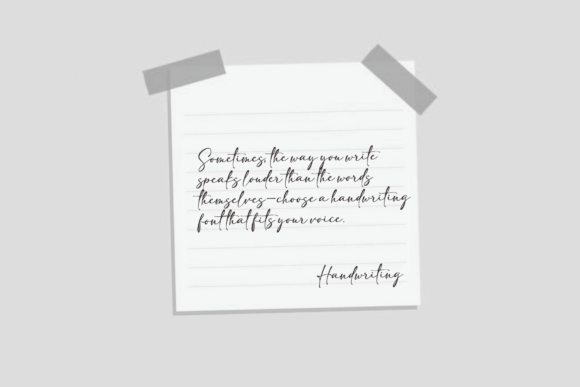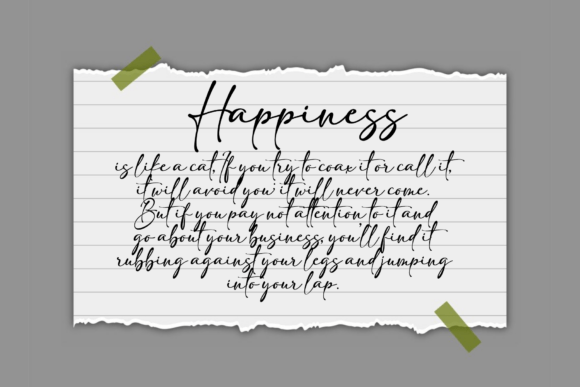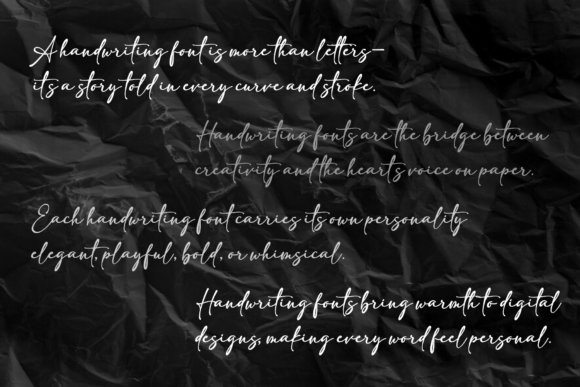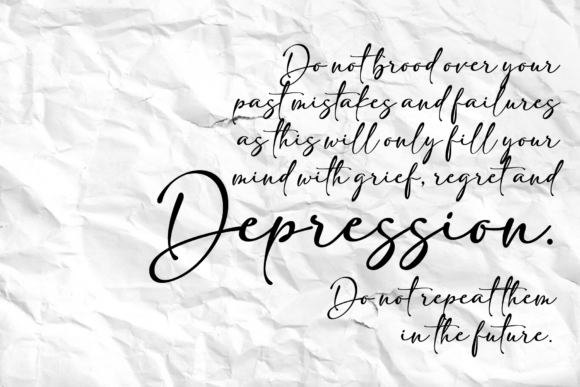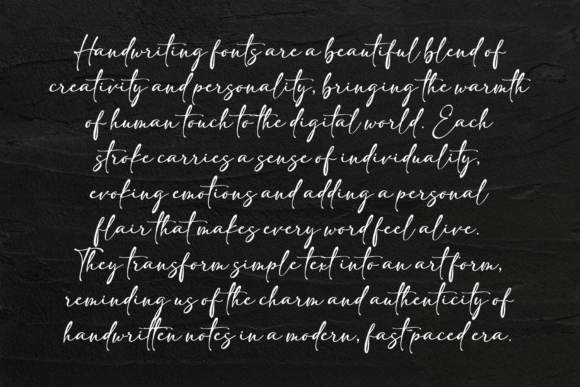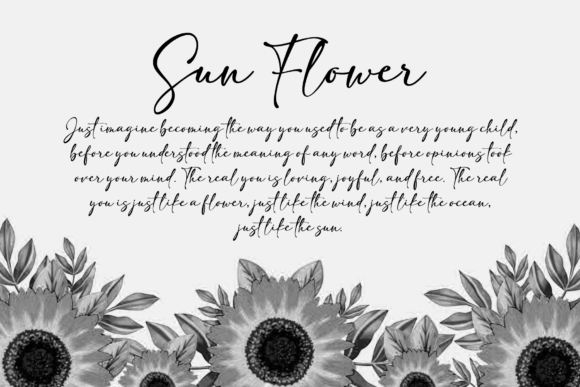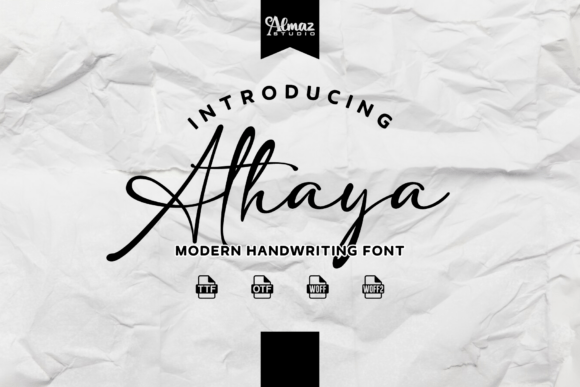
The Perfect Script: Unveiling the Beauty of Athaya Font
Have you ever found yourself scribbling notes in the margin of a favorite book, pouring your thoughts onto the page in a messy yet endearing scrawl? This is the magic of handwriting, and it’s a feeling that many designers strive to capture in their work. For those looking to add a personal touch to their designs, the Athaya Font offers a unique solution – a script and handwriting font that mimics the fluidity and expressiveness of cursive writing.
Athaya Font is a versatile typeface that can range from elegant and formal to casual and playful, making it an ideal choice for designers looking to add a human touch to their work. Whether you’re creating invitations, branding, packaging, or logos, this font is sure to bring personality and uniqueness to your designs. With its intricate flourishes and authentic, handwritten feel, the Athaya Font is a valuable asset for any designer looking to elevate their work.
Athaya Font Key Features
- Unique Characteristics: Elegant script with a touch of modernity, making it suitable for various design projects.
Athaya Font Review
I recently had the chance to work with the Athaya font, and I must say, it has some amazing qualities that make it stand out.
- Unique and elegant design: The Athaya font has a distinct, hand-drawn feel that makes it perfect for creative projects.
- High-quality font rendering: The font is well-crafted and renders beautifully across different devices and screen sizes.
- Excellent for headlines and titles: The font’s bold and striking design makes it ideal for grabbing attention and setting the tone for a project.
- Not suitable for body text: While the font is great for headlines, it can be a bit overwhelming for larger blocks of text.
- Limited language support: The font may not be optimized for languages that require a lot of ligatures or complex typography.
Overall, I’d say that the Athaya font is a great addition to any designer’s toolkit. While it may have some limitations, its unique design and high-quality rendering make it a standout choice for creative projects.
Athaya font is ideal for creative projects that require a unique, elegant touch. Use it for titles, headings, or body text in designs that need a sophisticated look. Some common use cases include:
- Brand logos and identity designs
- Book covers and publishing materials
- Event promotions and advertising